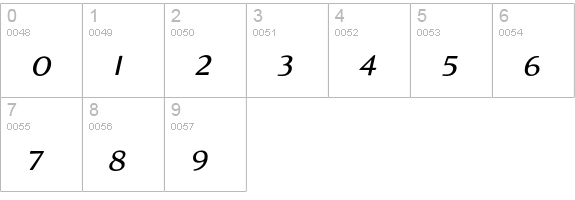
EideticModern-Italic Font Details
EideticModern-Italic is a distinctive, italic variant in the EideticModern typeface family \xE2\x80\x94 well suited to design and typography projects.
Introducing EideticModern-Italic font - a sleek and stylish typeface designed to add a touch of sophistication to any project. The elegant curves and unique letterforms of this font make it perfect for creating eye-catching designs that stand out from the crowd. With its modern yet classic look, EideticModern-Italic is versatile enough to be used in a variety of applications, from branding to editorial design. What sets EideticModern-Italic apart is not only its visual appeal but also its functionality. The italic style adds a dynamic and graceful flair to any text, making it ideal for conveying a sense of elegance and professionalism. Whether you're working on a website, a brochure, or a logo, this font is sure to elevate your design to the next level. The best part? EideticModern-Italic is completely free to download at FontsMarket.com. So go ahead and give your projects a touch of sophistication with this stunning typeface. Let your creativity shine with EideticModern-Italic font!